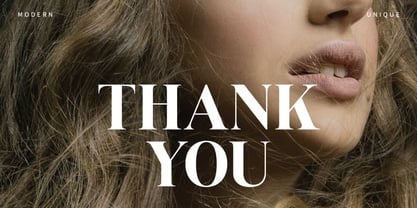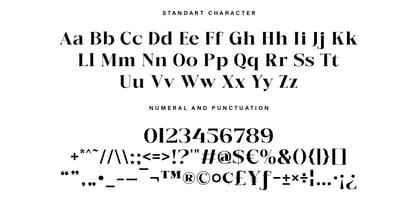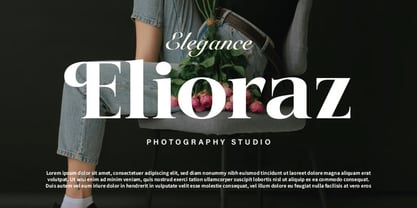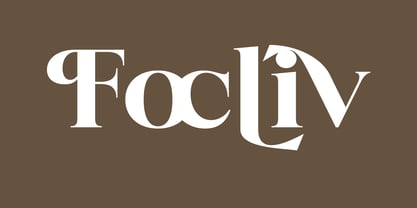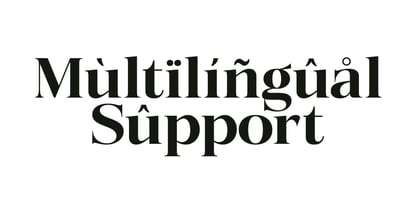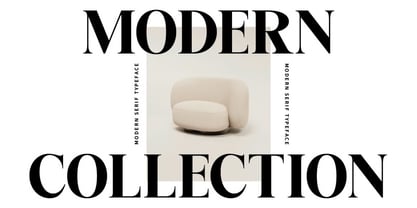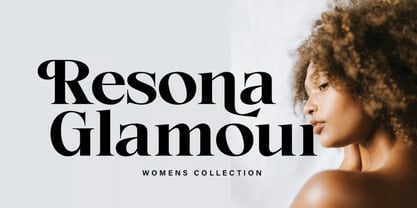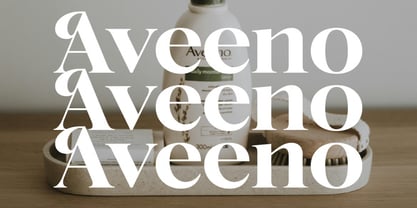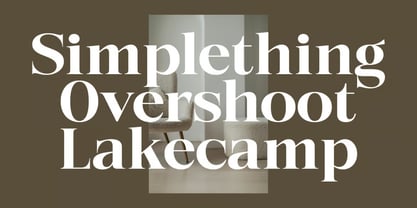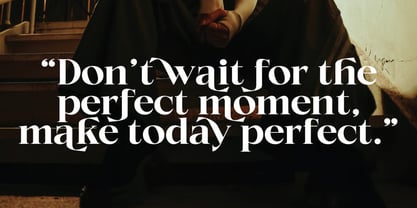
Focliv
Focliv is a modern and versatile display typeface designed to bring clarity, style, and professional appeal to a wide range of creative projects. Featuring clean letterforms, balanced proportions, and a contemporary aesthetic, Focliv is crafted to help designers create memorable visuals that stand out across both print and digital media.
Whether you're designing logos, branding materials, posters, packaging, social media graphics, website headers, editorial layouts, advertisements, or promotional content, Focliv delivers a strong visual presence while maintaining excellent readability and versatility. Its modern character makes it suitable for both professional and creative applications, allowing designers to communicate their message with confidence and style.
Designed for maximum flexibility, Focliv works beautifully in headlines, titles, branding projects, and marketing campaigns where impactful typography is essential.
✿ Key Features:
• Modern Display Typeface: Clean and contemporary letterforms for versatile design use.
• Uppercase & Lowercase Characters: Complete alphabet for professional typography.
• Numerals & Punctuation: Essential characters for creative and commercial projects.
• Balanced Typography: Designed for excellent readability and visual harmony.
• Professional Letterforms: Suitable for branding, advertising, and editorial design.
• High-Quality Font Construction: Optimized for both print and digital applications.
✿ Perfect For:
• Branding & Logo Design: Create modern and memorable brand identities.
• Posters & Advertising: Design eye-catching headlines and promotional materials.
• Editorial & Magazine Layouts: Perfect for titles, covers, and feature content.
• Packaging & Product Labels: Add a clean and professional look to product designs.
• Social Media Graphics: Create engaging and stylish digital content.
• Website Headers & Digital Design: Enhance user experiences with modern typography.
• Creative Projects: Ideal for presentations, marketing materials, and visual storytelling.
Bring a modern and professional touch to your designs with Focliv—a versatile display typeface perfect for branding, logos, posters, editorials, packaging, advertising, and creative projects that demand clean, impactful typography.